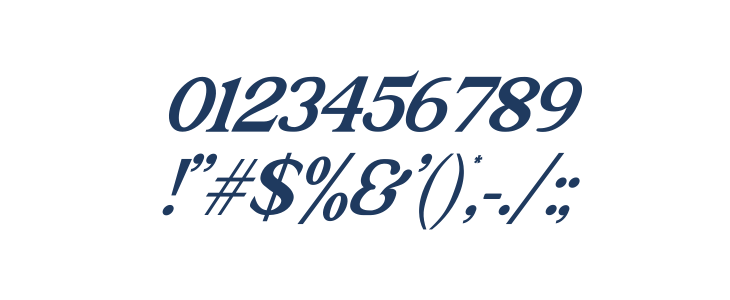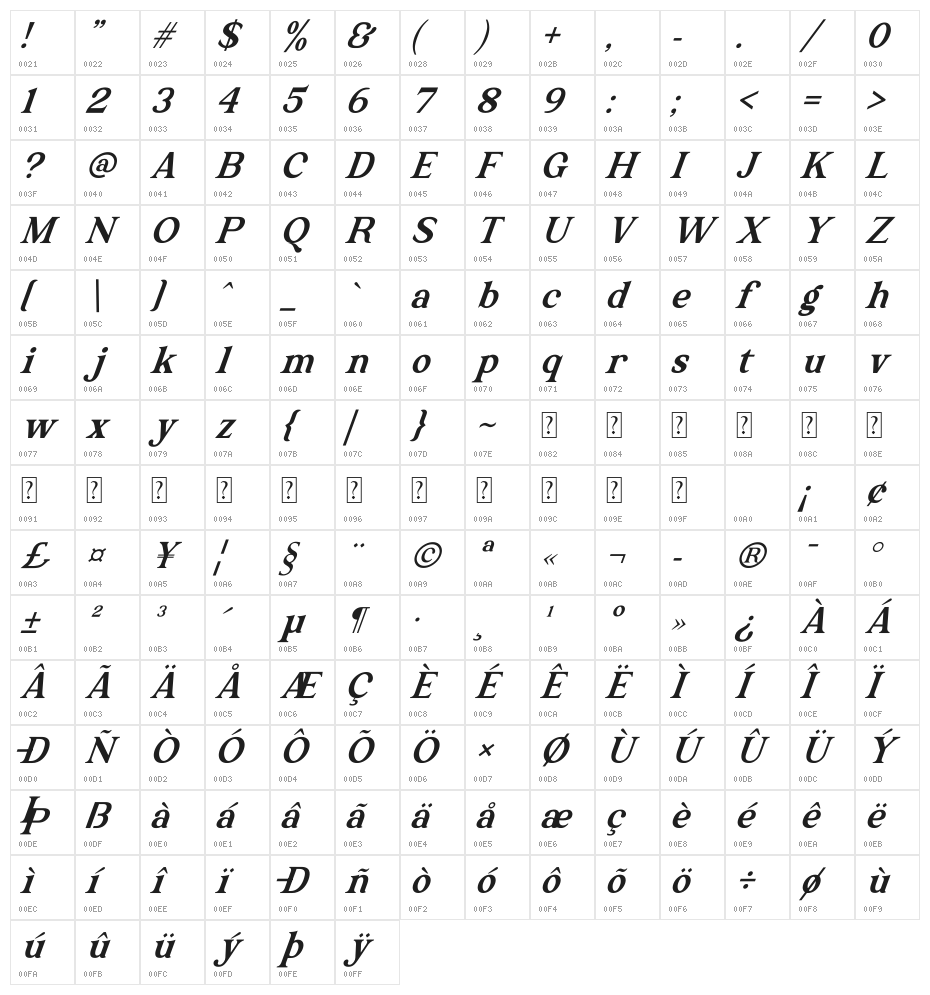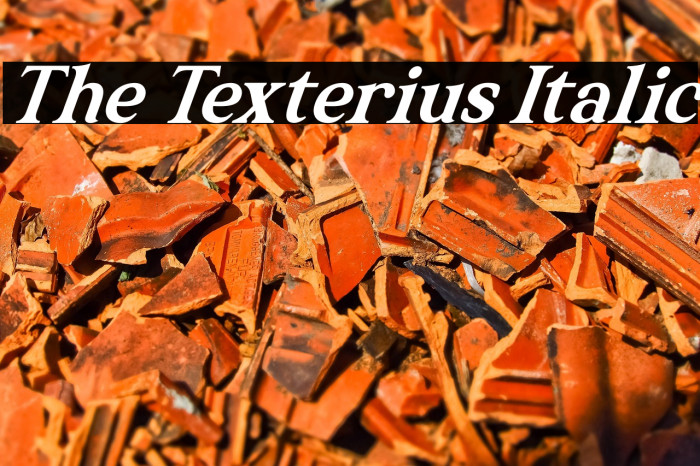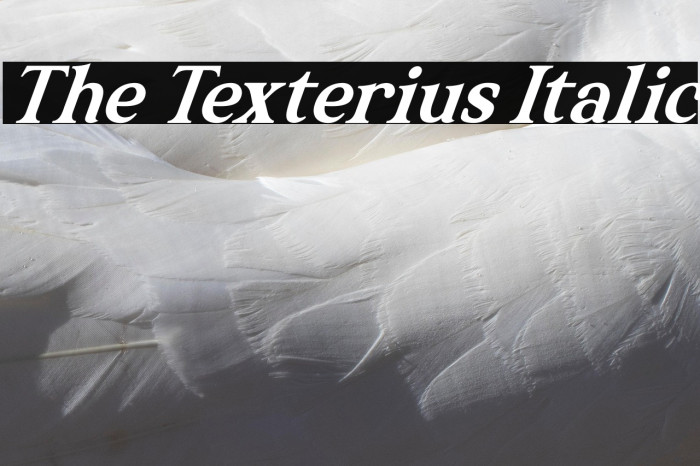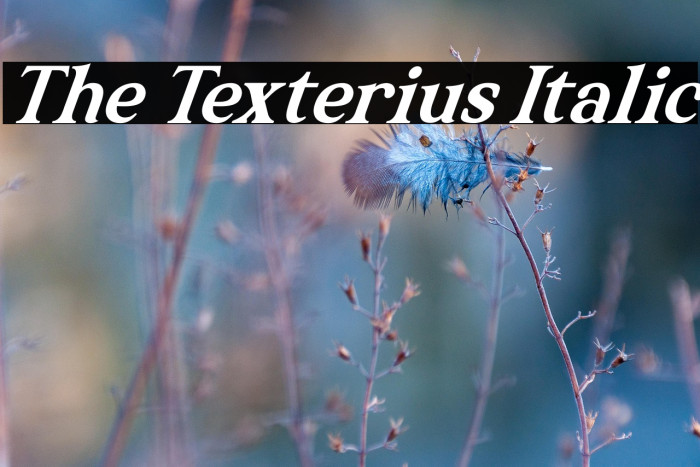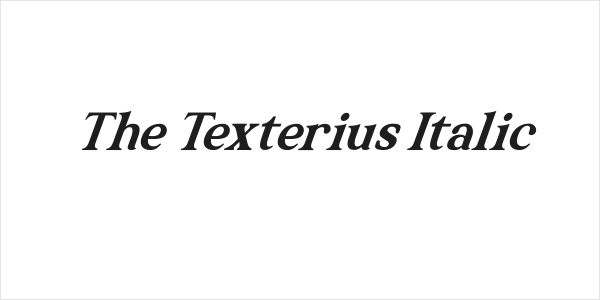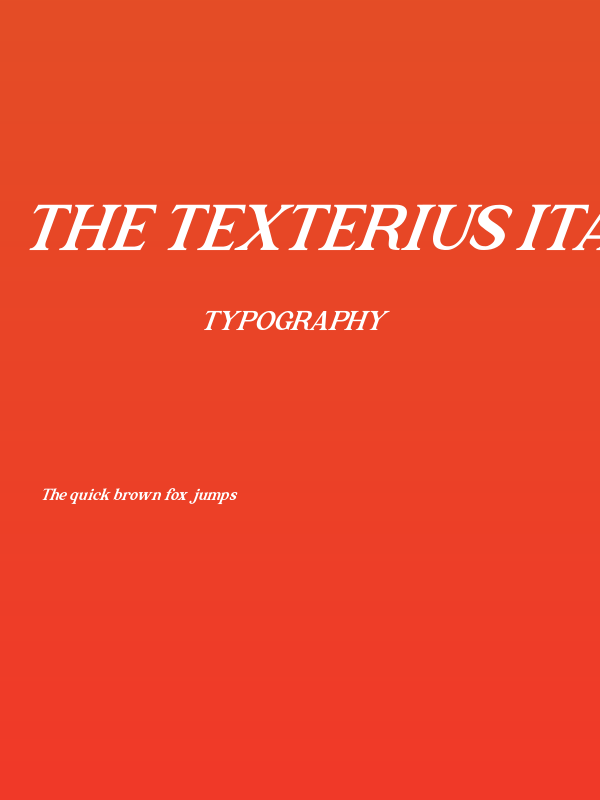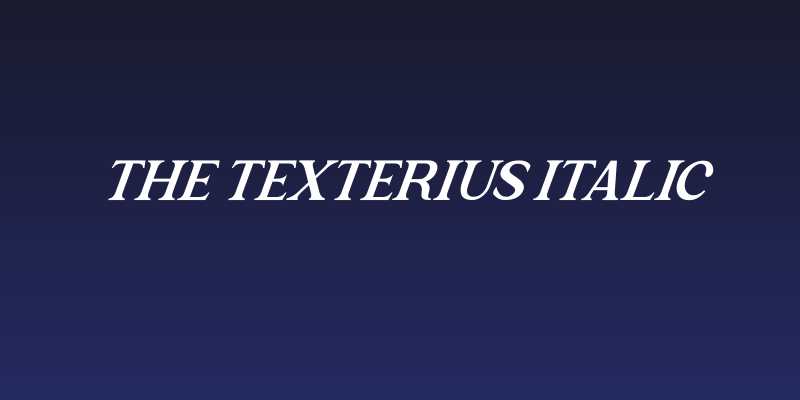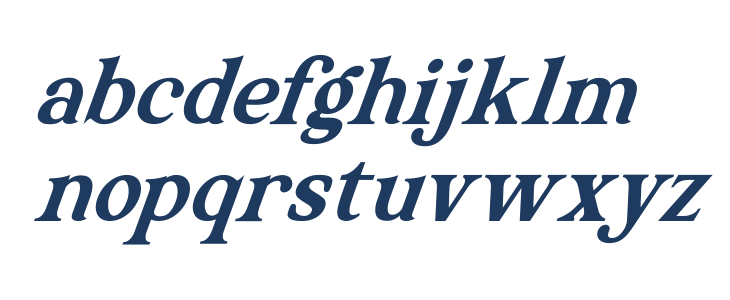
The Texterius Italic Font
The Texterius Italic Description
This font features a classic italic style with elegant, flowing lines and a sophisticated appearance. The uppercase letters are slightly slanted, giving a sense of movement and dynamism. The lowercase characters maintain a consistent slant, enhancing readability while adding a touch of elegance. The numerals are well-proportioned, complementing the overall design. Special characters are crafted with attention to detail, ensuring they integrate seamlessly with the rest of the font. This typeface is ideal for projects that require a refined and polished look.
| Use Case | Headlines, Logos, Editorial design |
| Proposed Projects | Ideal for wedding invitations, formal event programs, luxury branding, and editorial design. |